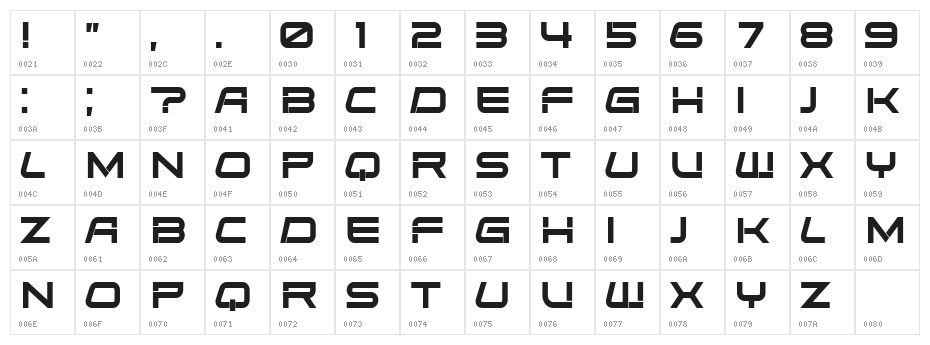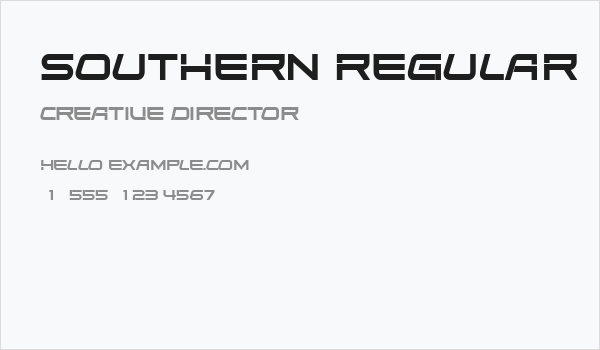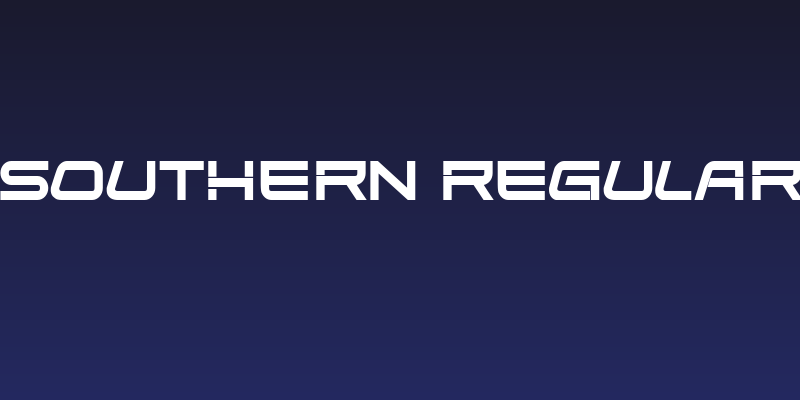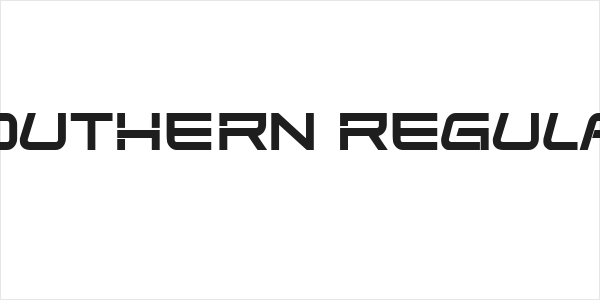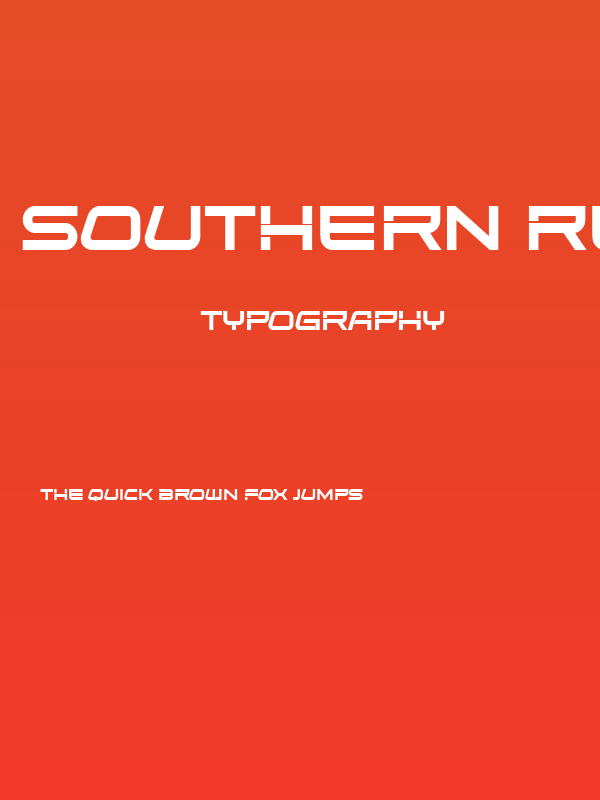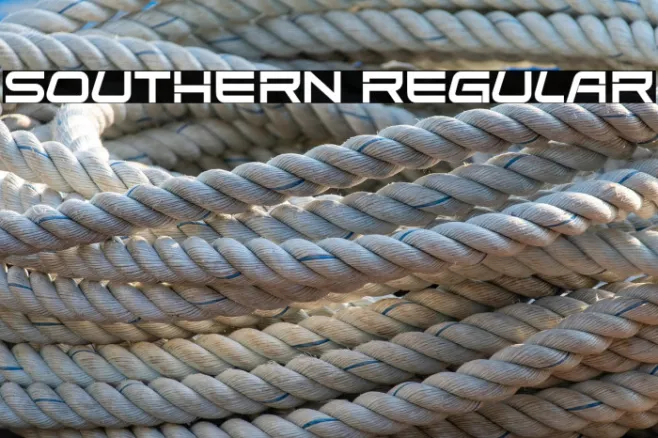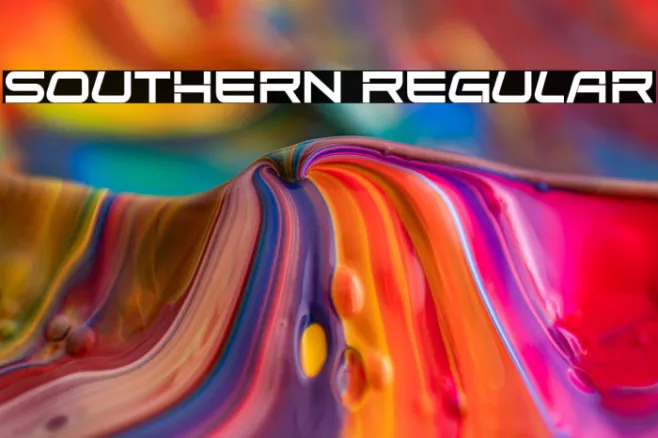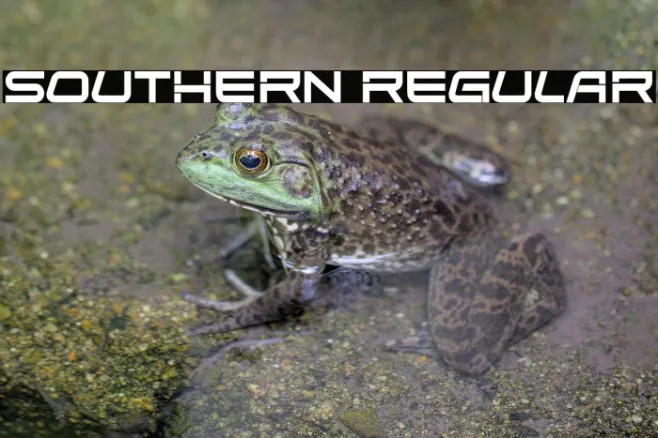
Southern Regular Font
Southern Regular Description
This font features a futuristic and geometric design, characterized by its bold and angular letterforms. The uppercase and lowercase letters maintain a consistent style, with sharp edges and a distinct, modern aesthetic. The numerals and special characters follow the same design principles, ensuring uniformity across all glyphs. The font's structure is clean and precise, making it suitable for projects that require a contemporary and tech-inspired look.
| Proposed Projects | Ideal for technology branding, sci-fi movie posters, video game titles, and modern digital interfaces. |